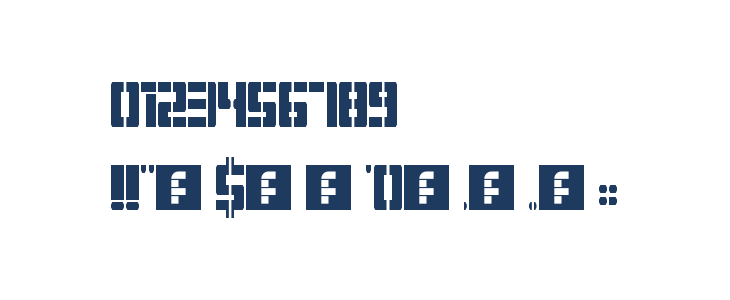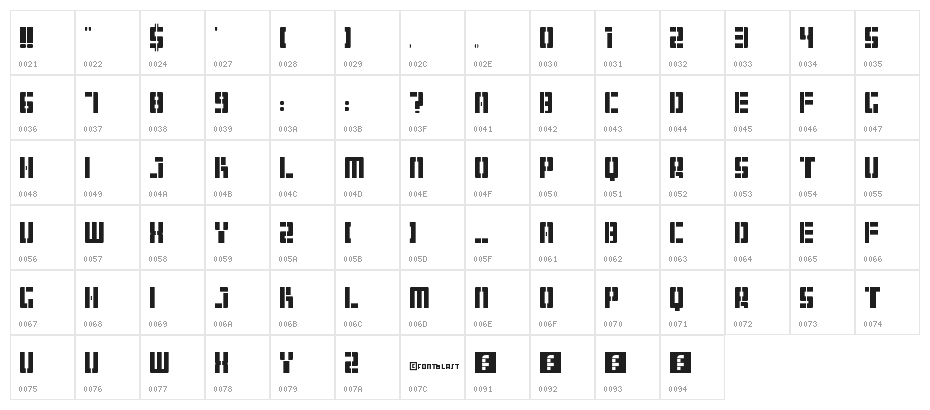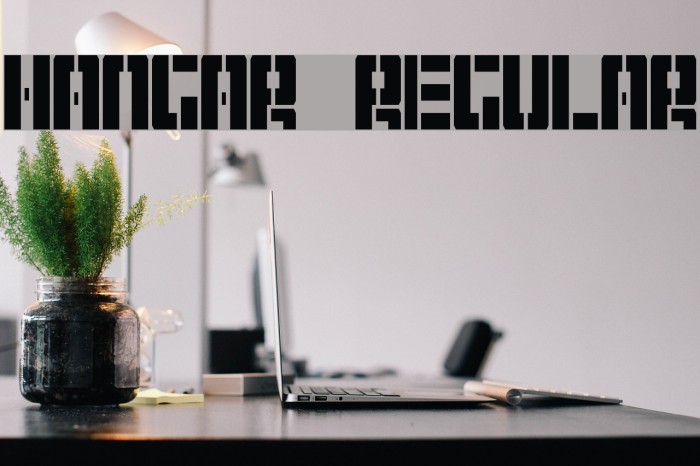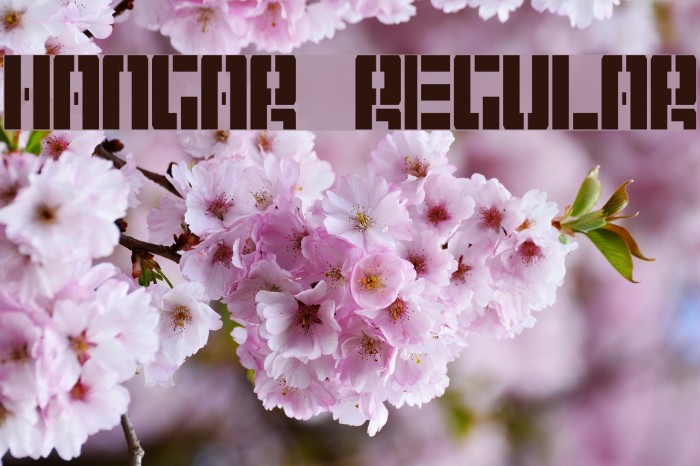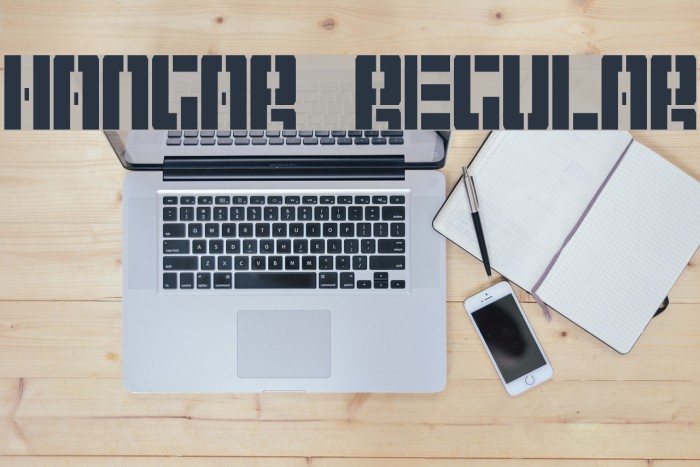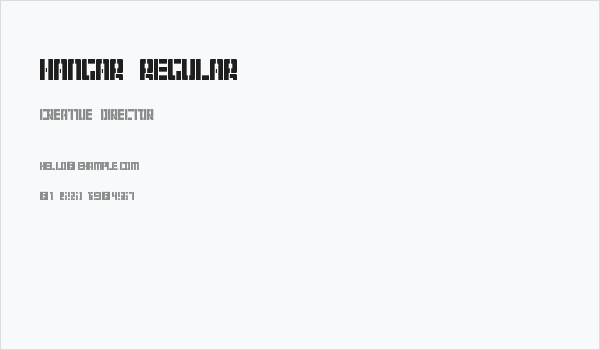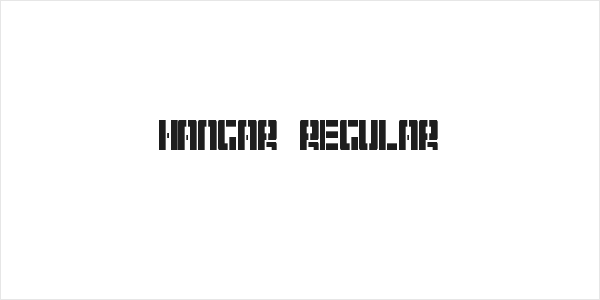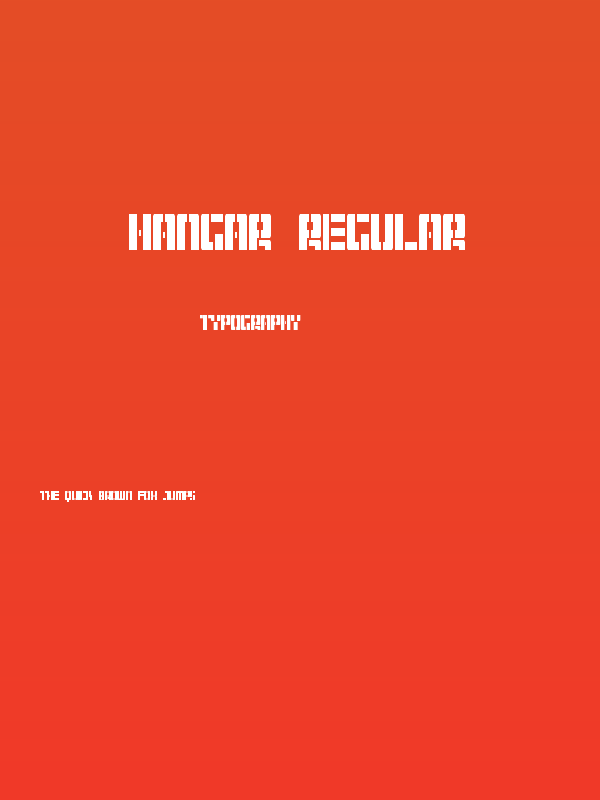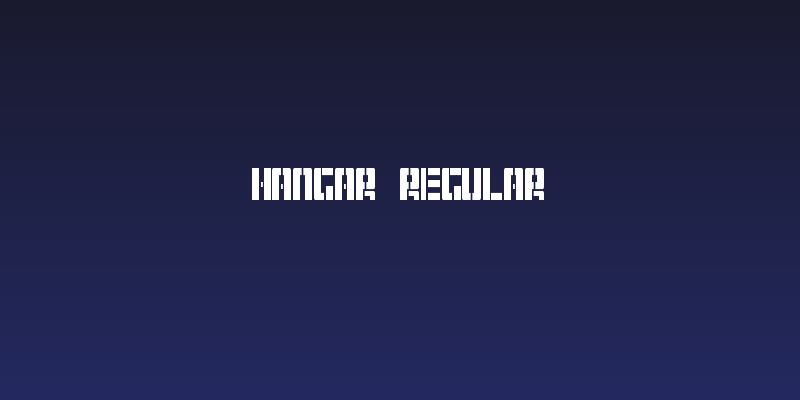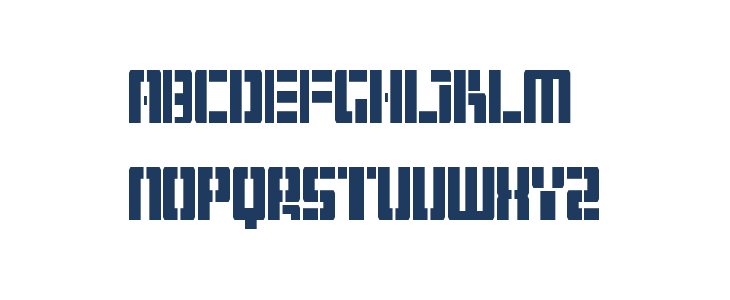
Hangar Regular Font
Hangar Regular Description
This font features a bold, geometric design with a strong, industrial feel. The characters are constructed with thick, block-like shapes, giving them a robust and sturdy appearance. The uppercase and lowercase letters maintain a consistent height, enhancing the uniformity and balance of the typeface. The numerals and special characters follow the same design principles, ensuring a cohesive look across all elements. The font's distinct style makes it highly suitable for projects requiring a modern and impactful visual presence.